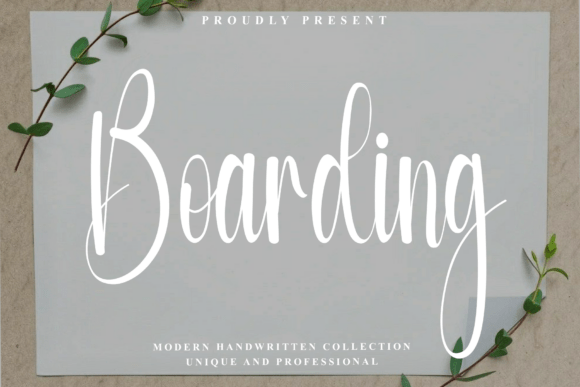
The Perfect Font for Your Next Design Project: A Deep Dive into Boarding Font
I’ll never forget the design project that led me to discover the Boarding Font. I was working on a travel photography portfolio for a client who wanted a clean, elegant, and sophisticated look. As I scrolled through font after font, nothing seemed quite right – either they were too ornate, too bland, or just didn’t evoke the sense of freshness and crispness I was looking for. That was until I stumbled upon Boarding. With its tall, thin strokes and subtle, airy slant, it was like a breath of fresh air. In this article, I’ll share my experience with Boarding Font, its features, and how you can make the most of it in your designs.
An Honest Review of Boarding Font
• ✨ Unique and Professional: Boarding Font offers a fresh take on modern handwritten fonts, perfect for designers looking for something that stands out.
• ✅ Clean and Approachable: Its style is ideal for a wide range of projects, from travel photography to outdoor gear branding and sophisticated web design.
• 💡 Versatile: Whether you’re designing for digital or print, Boarding Font adapts seamlessly.
While Boarding Font is incredibly versatile and beautifully designed, there are a few things to keep in mind:
• ⚠️ Legibility at Small Sizes: Like many elegant fonts, Boarding may lose some legibility when scaled down too much. It’s best used at larger sizes or for headlines.
• 🤔 Overuse of Stylistic Alternates: With a range of OpenType features and glyphs, it’s easy to get carried away. Make sure to use them thoughtfully to maintain design balance.
The Backstory Behind Boarding Font
While the origins of Boarding Font are not well-documented, it’s clear that the designer aimed to evoke a sense of clarity and elegance. Inspired by the crispness of a mountain breeze, Boarding Font brings a fresh and professional feel to the world of handwritten fonts. Whether used for travel, outdoor gear, or sophisticated web design, Boarding Font is sure to leave a lasting impression.
Is Boarding Font suitable for body text? While Boarding Font is elegant and clean, it’s best used for headlines or short paragraphs. For longer body text, consider a more readable font.
Does Boarding Font support OpenType features? Yes, Boarding Font comes with a range of OpenType features, including stylistic alternates and glyphs, which can be accessed in compatible design software.
Is Boarding Font available in different weights? Boarding Font offers a range of weights, making it versatile for various design needs.